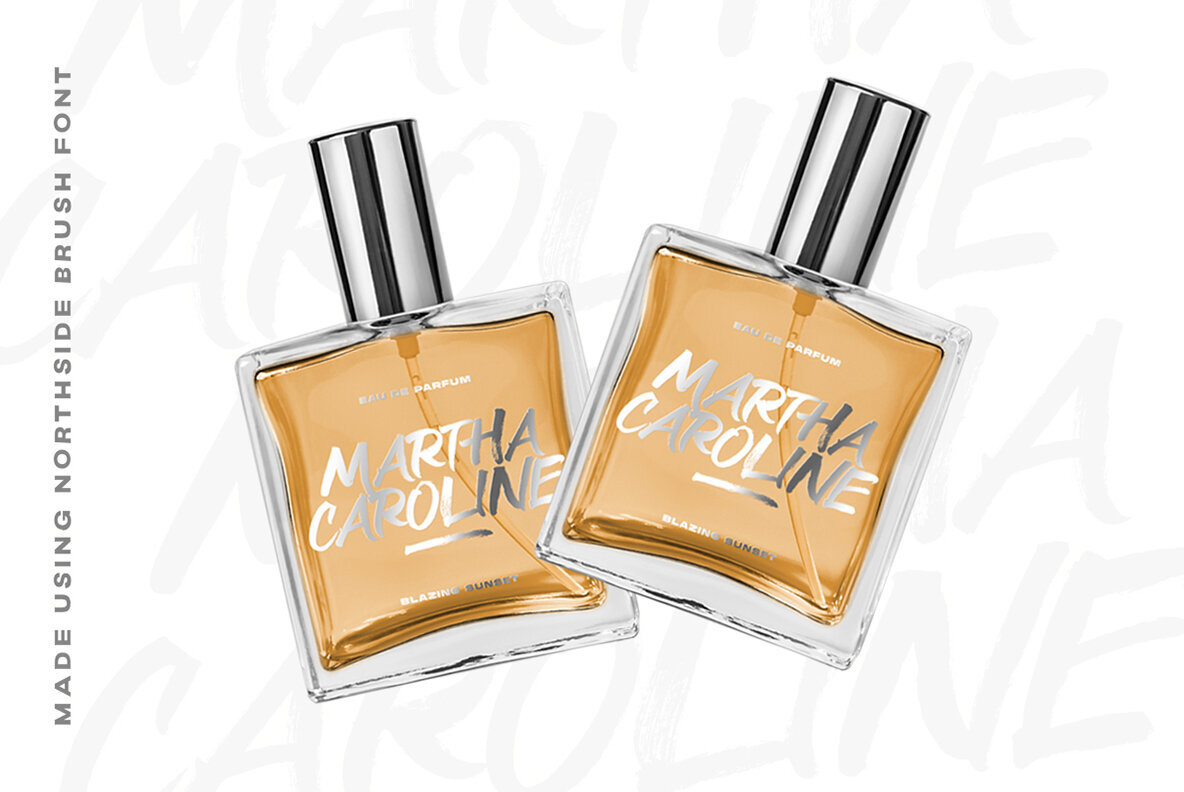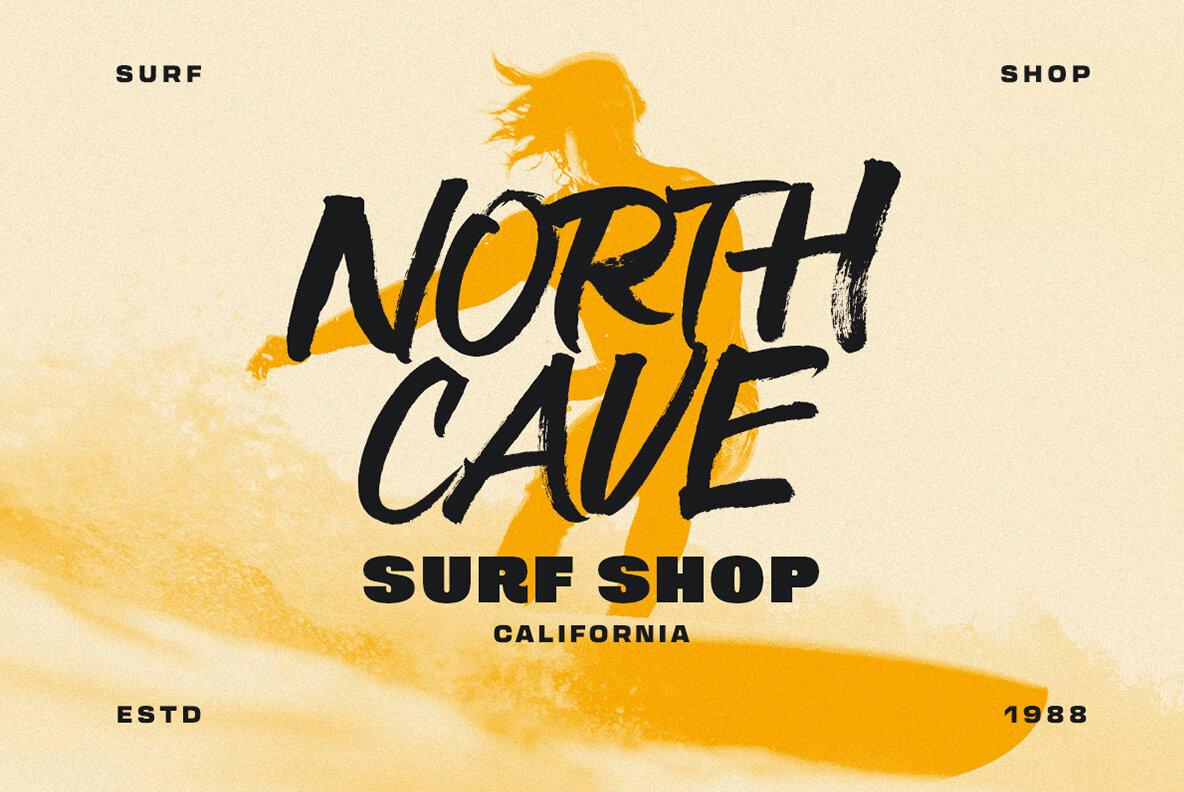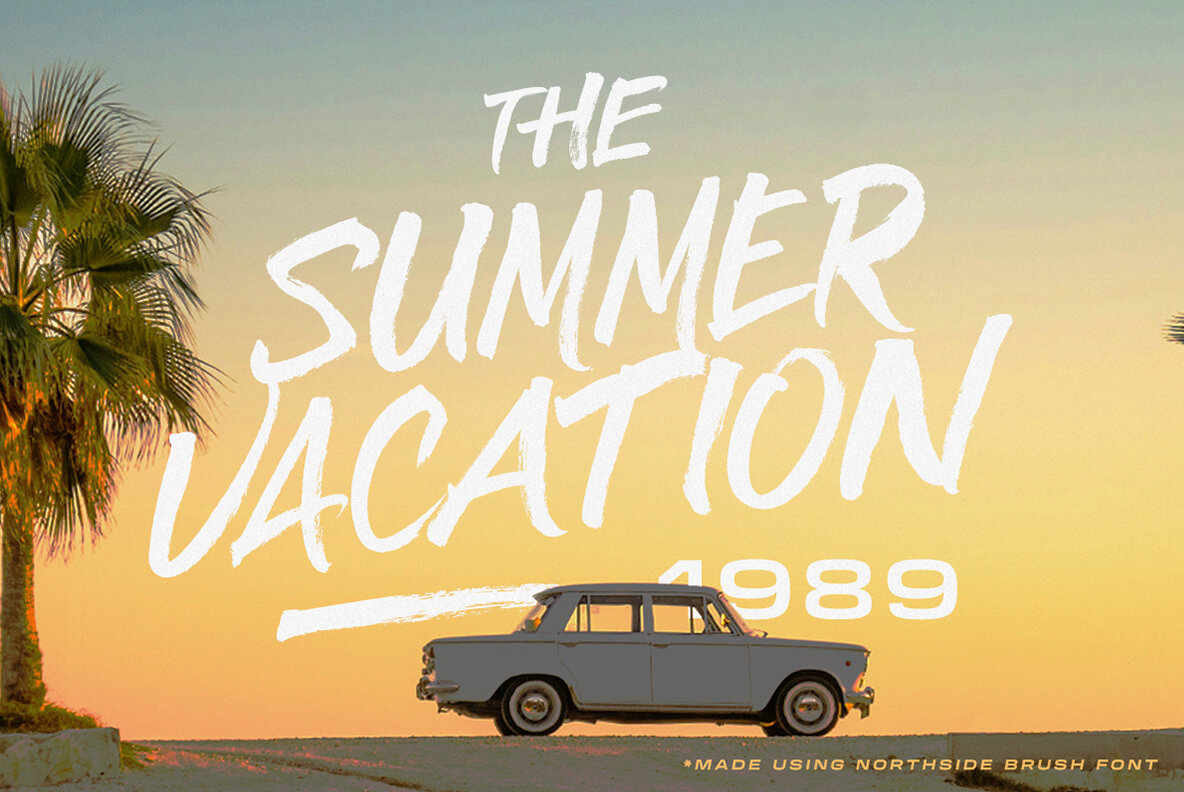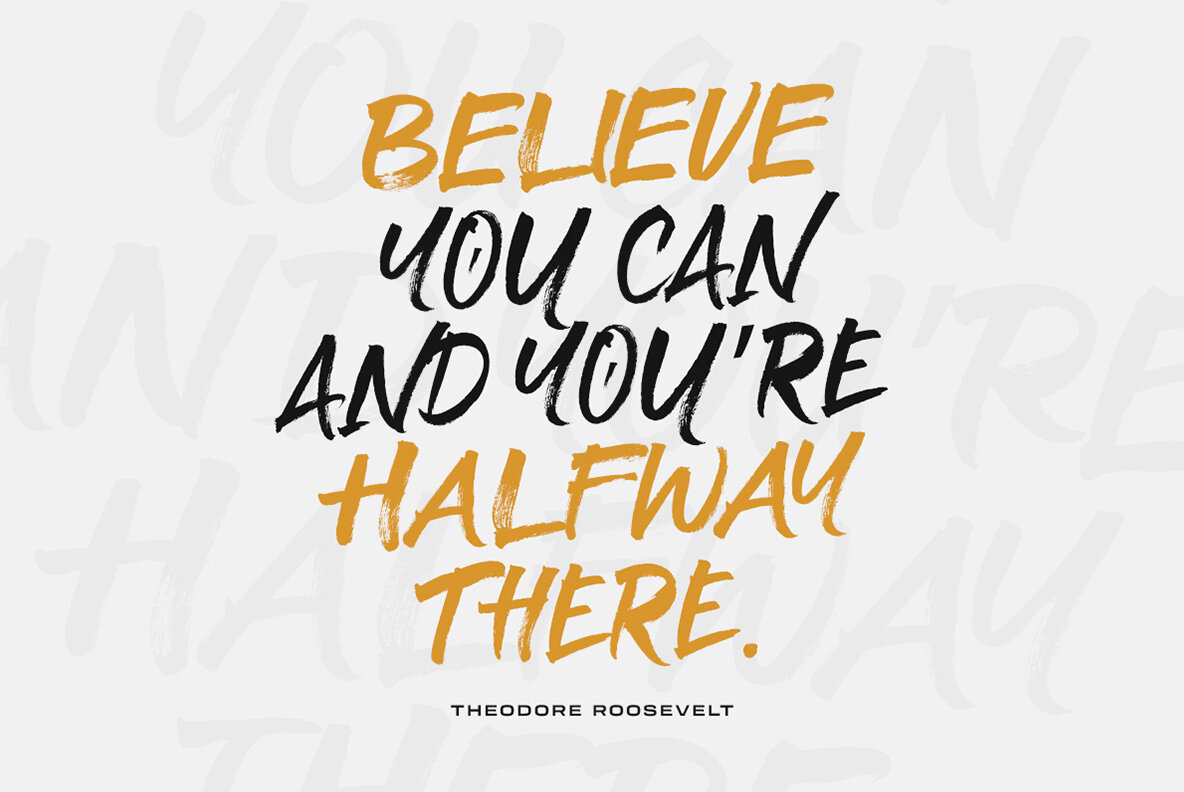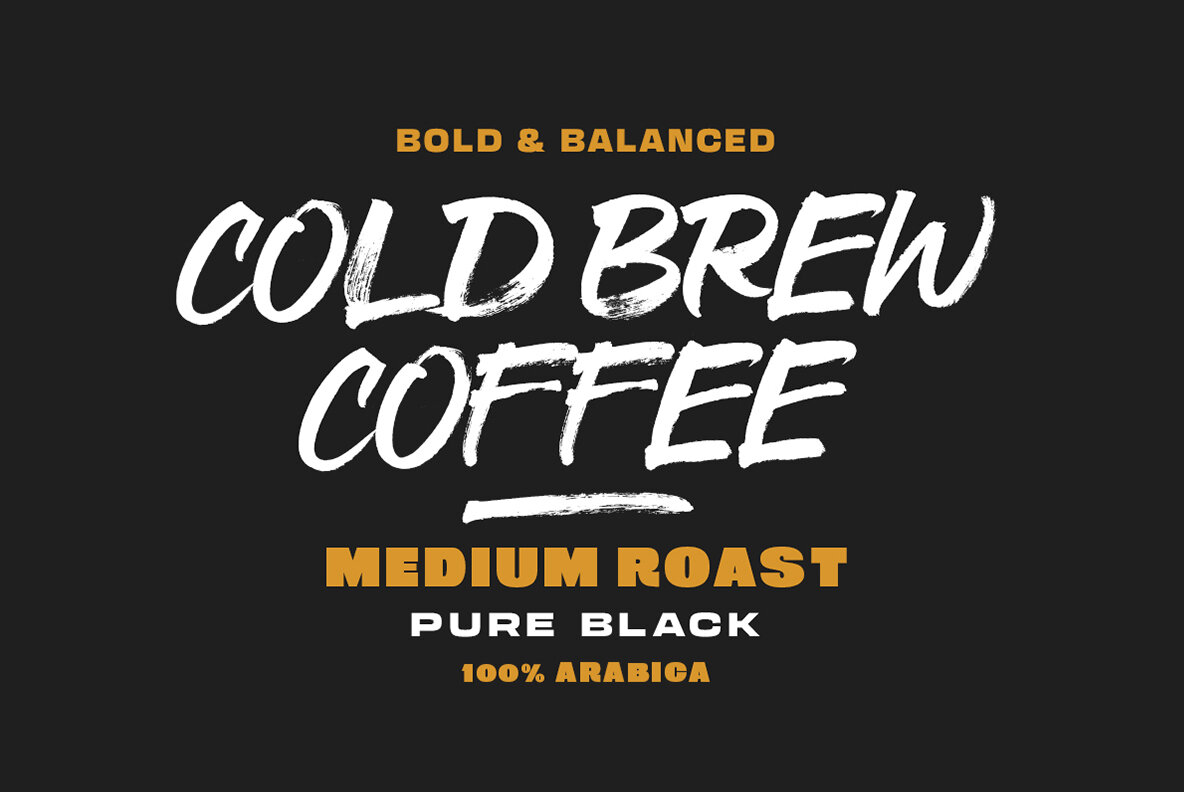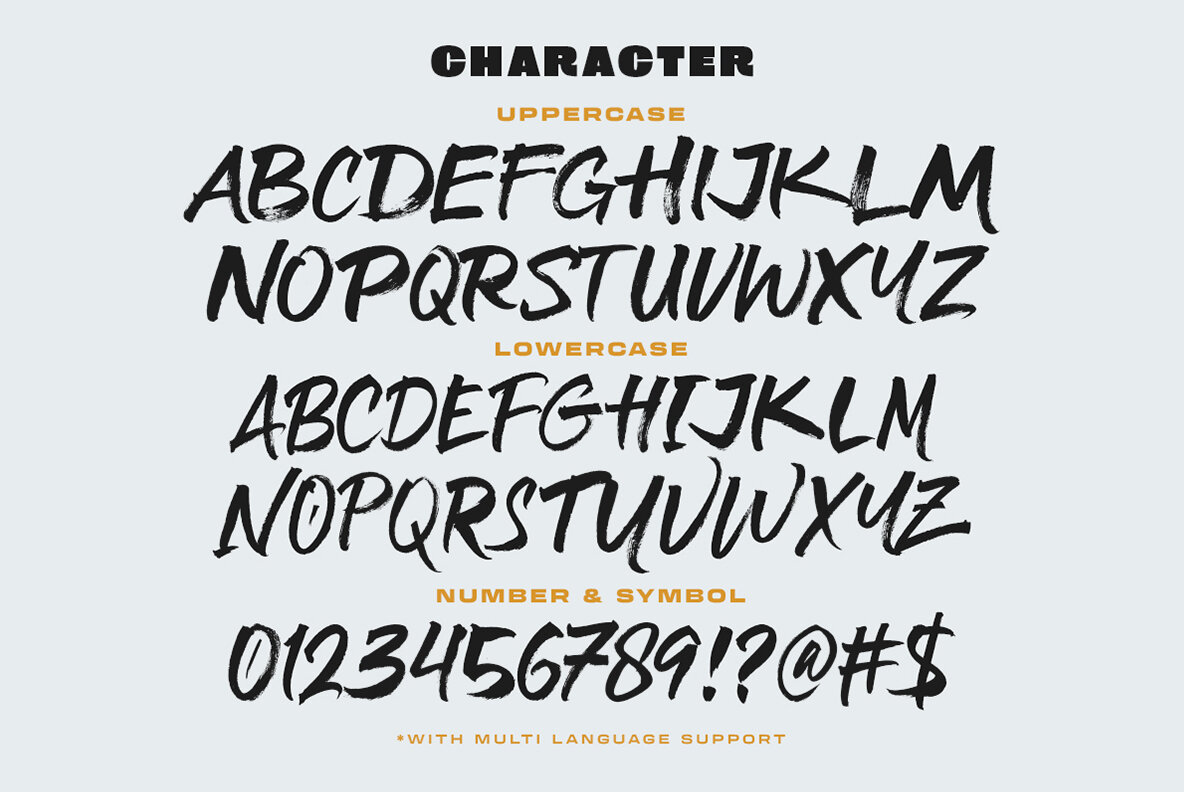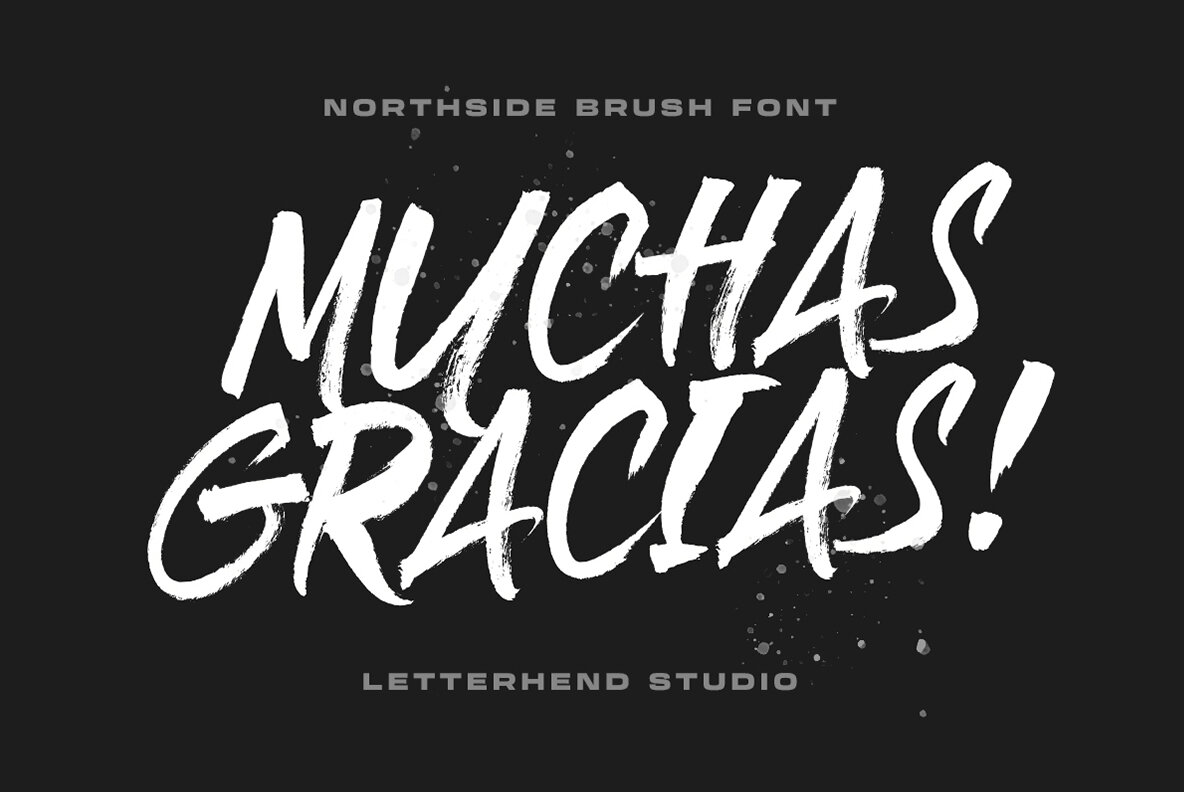
Northside Font
Northside Regular
Northside is a freestyle textured brush font, It's organic and hand-drawn appearance adds a touch authenticity to your designs, making it a perfect choice for projects that seek to stand out with a bold and creative statement.g, fashion, make up, stationery, novels, labels or any type of advertising purpose.